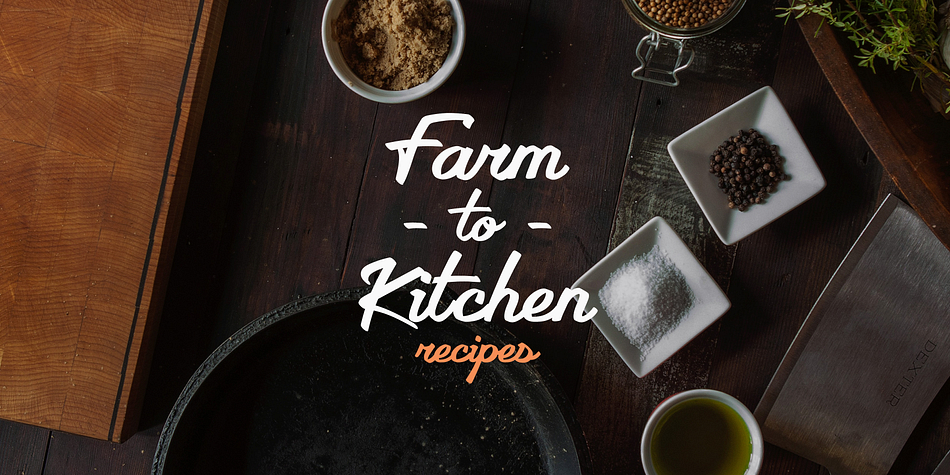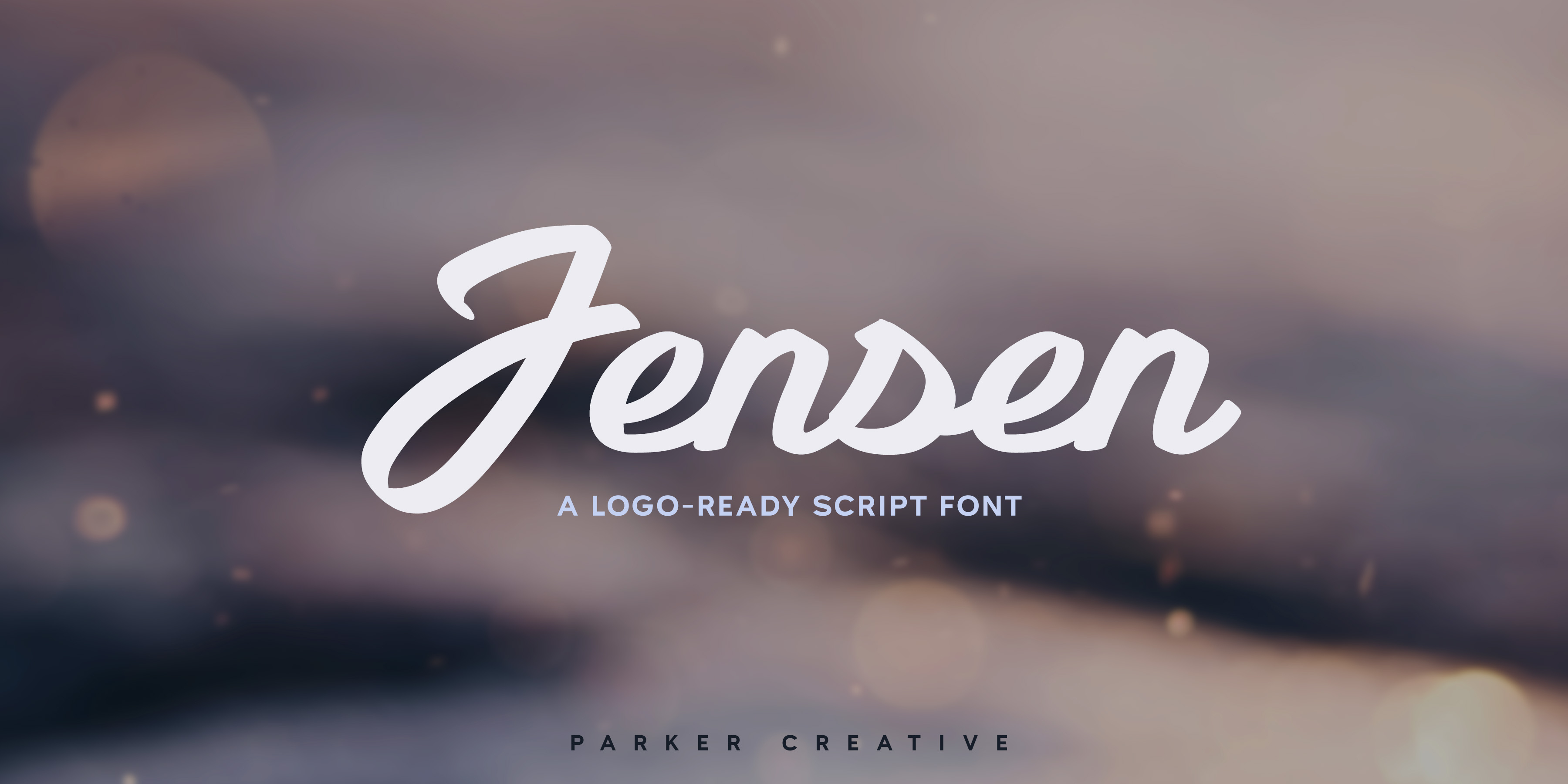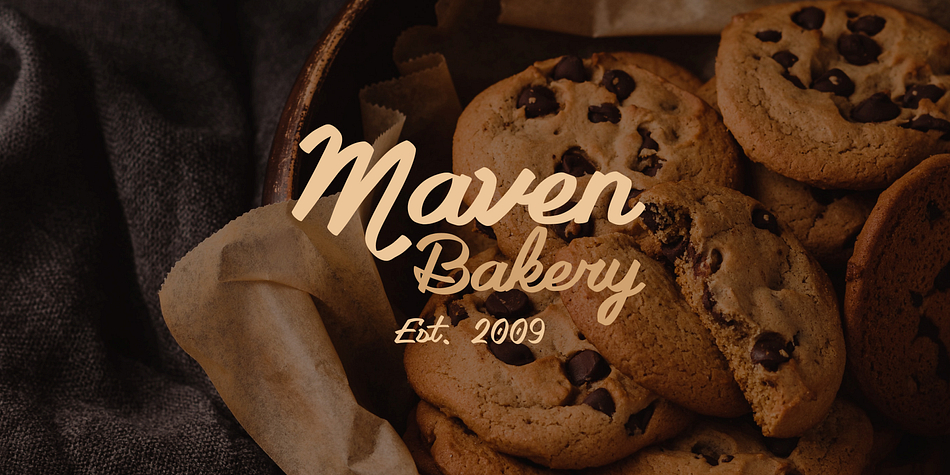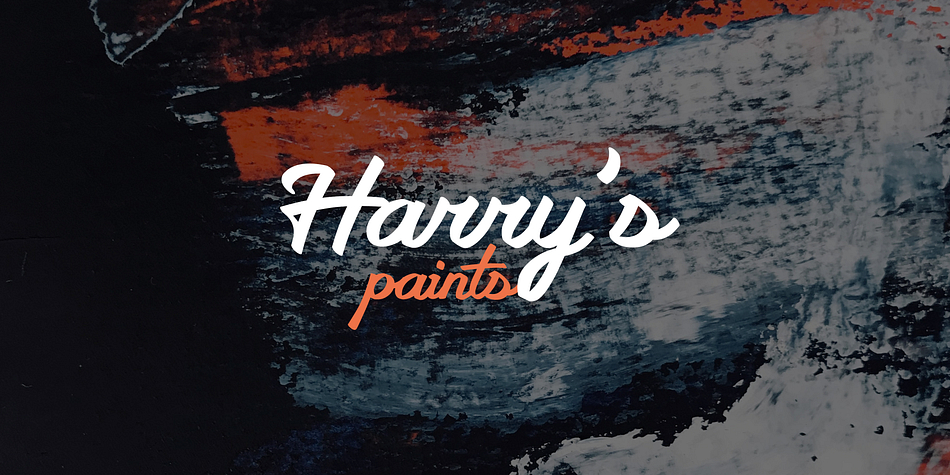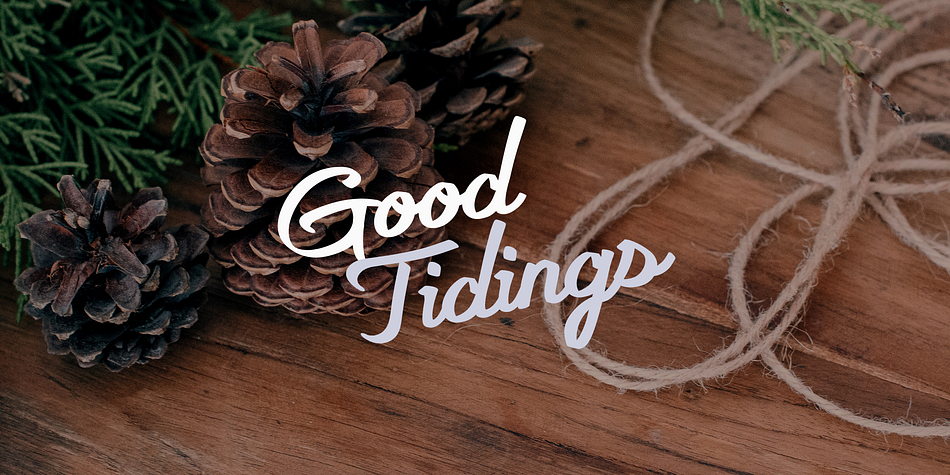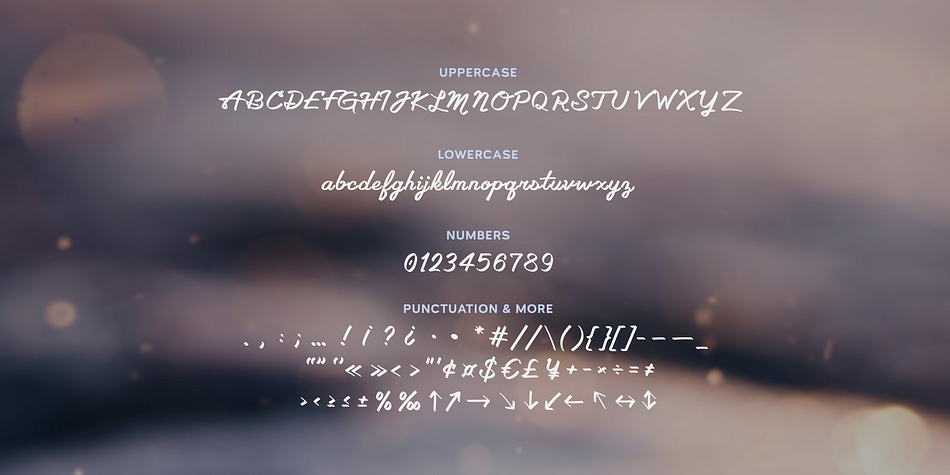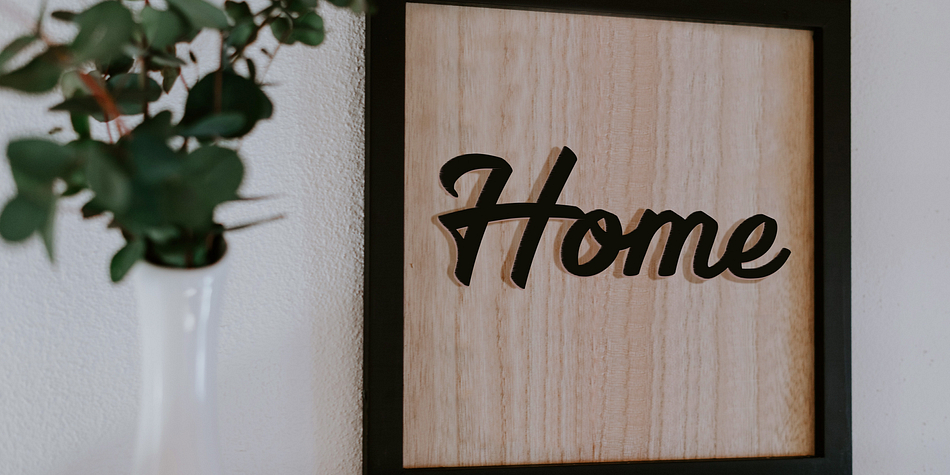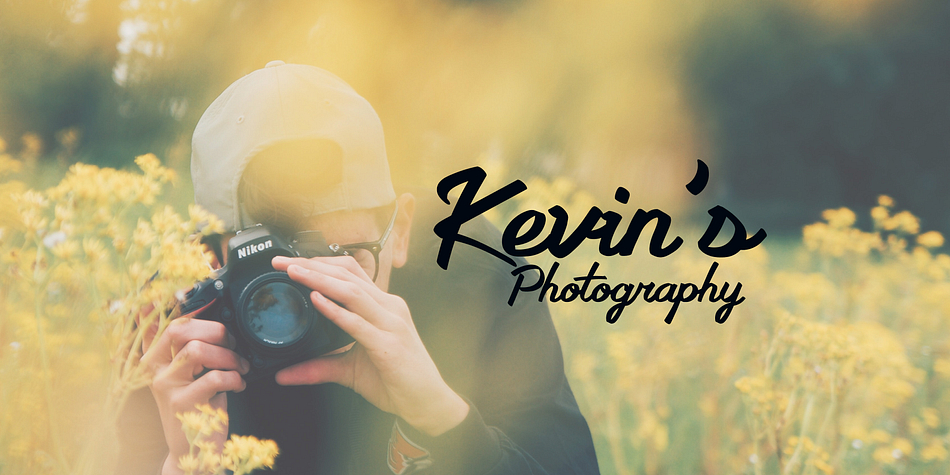
Jensen
Jensen is a script font published by Parker Creative.
Introducing Jensen, a logo-ready calligraphic script font. With its high-contrast angled style and expressive lettering, Jensen creates an authentically distinct look, making it the perfect fit for logo and branding projects big and small.
Upper + Lowercase Letters
Numerical Set
Expanded Set of Punctuation and Symbols
72 Ligatures